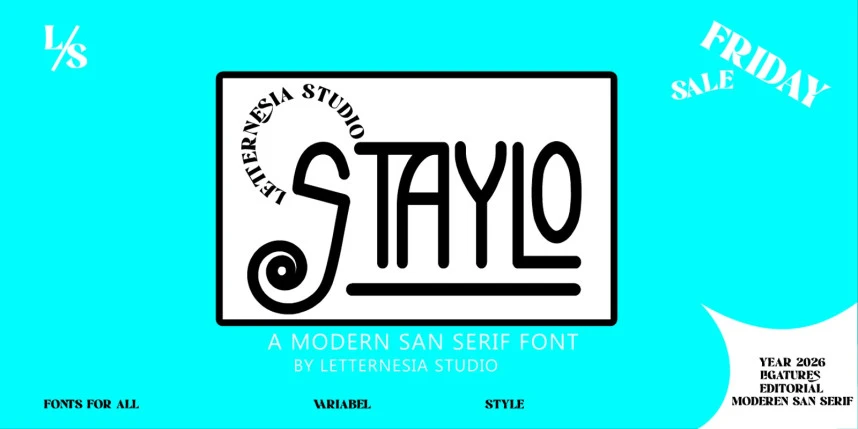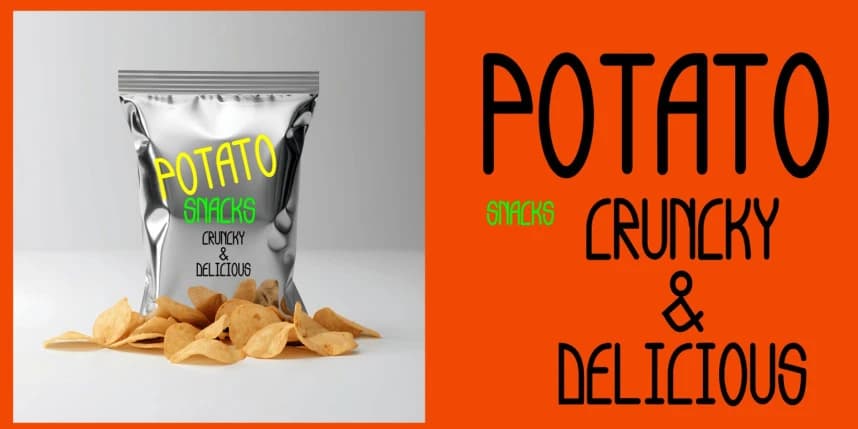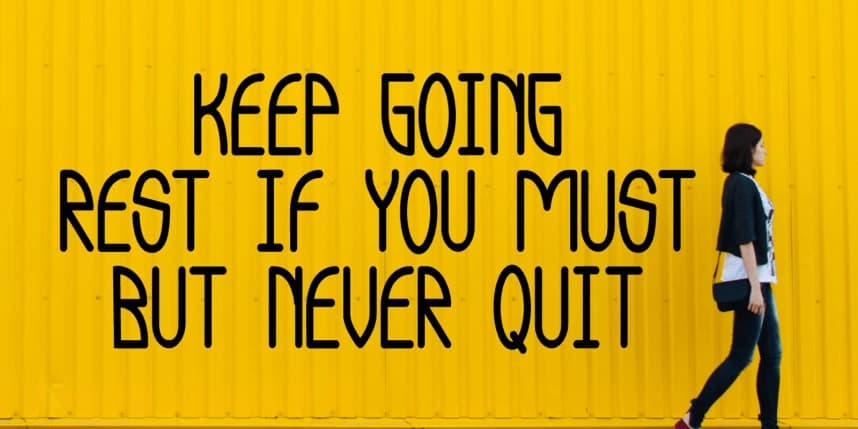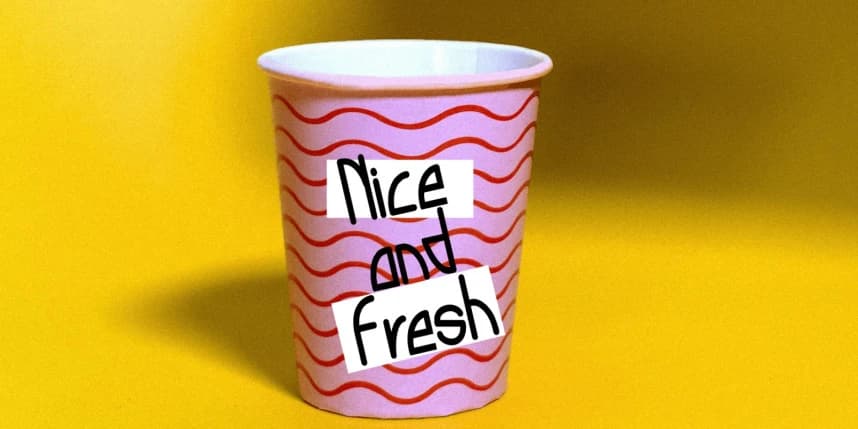
Staylo Font
STAYLO Font is a bold and stylish display font designed to make a strong visual impact. With its modern shapes and confident character, STAYLO instantly grabs attention and adds personality to any design project.